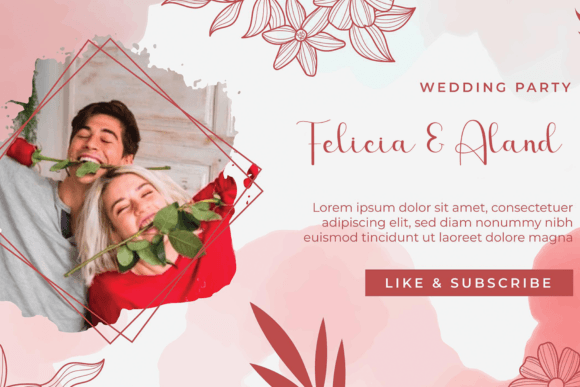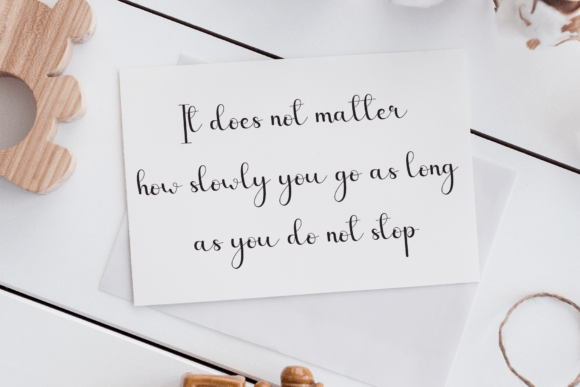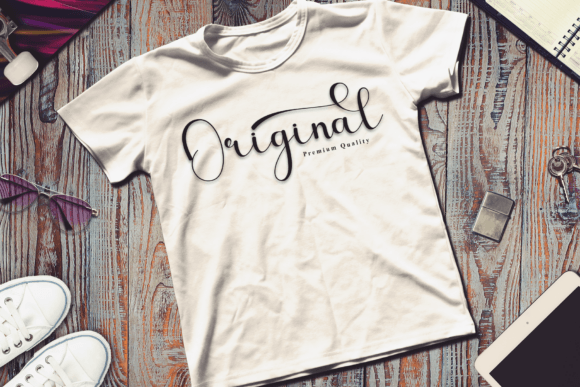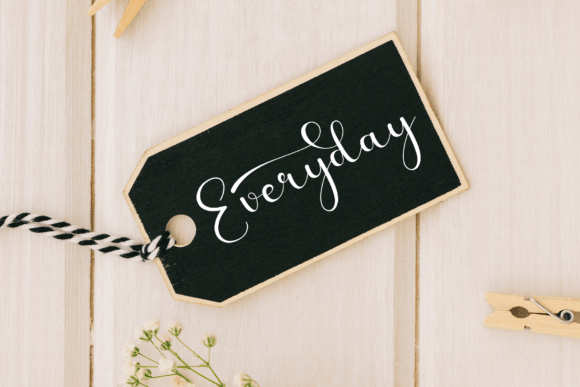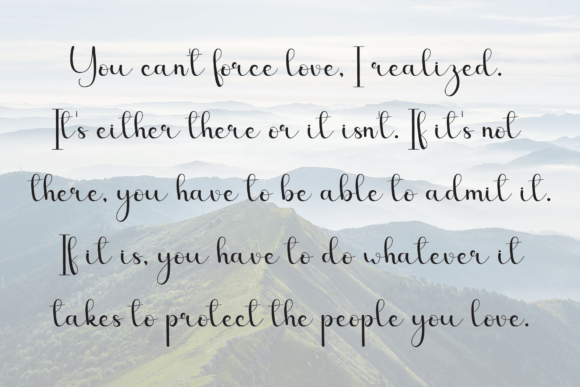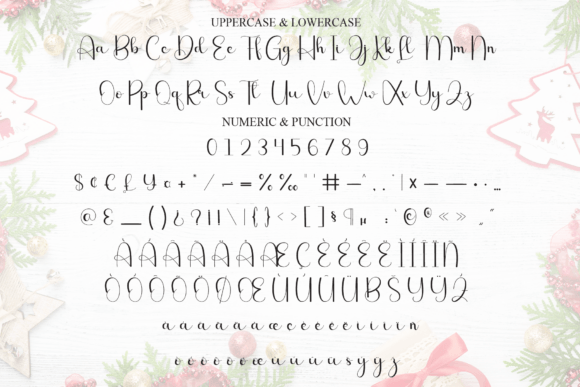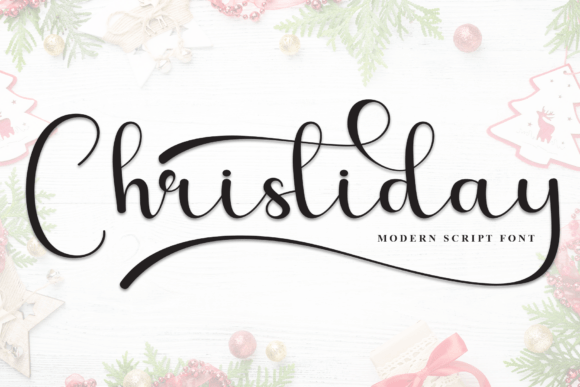
Introducing Christiday Font: The Ultimate Handwritten Display Font for Joyful Designs
Are you tired of using the same old fonts for your designs? Do you want to add a touch of warmth and personality to your wedding invitations, cards, and other creative projects? Look no further than Christiday Font, a charming and welcoming handwritten display font that’s sure to bring a smile to your face. In this article, we’ll dive into the world of Christiday Font and explore its features, benefits, and uses.
A Font that Exudes Charm and Happiness
Christiday Font is a beautifully crafted handwritten display font that’s designed to evoke feelings of joy and warmth. Its unique blend of sweetness and friendliness makes it perfect for creating designs that are not only visually appealing but also emotively engaging. Whether you’re a designer, crafter, or DIY enthusiast, Christiday Font is sure to become your go-to font for all your creative projects.
Wedding invitations and cards are special occasions that deserve a font that’s just as special. Christiday Font is the perfect choice for these types of designs, as it adds a touch of romance and whimsy to your creations. Imagine sending out wedding invitations that are not only informative but also beautiful and memorable. With Christiday Font, you can create stunning designs that will leave a lasting impression on your loved ones.
A Font that Blends Sweetness with Friendliness
What sets Christiday Font apart from other fonts is its unique blend of sweetness and friendliness. This font is not just a collection of letters and symbols; it’s a way to convey emotions and personality through your designs. Whether you’re creating a birthday card, a thank-you note, or a wedding invitation, Christiday Font is sure to bring a touch of warmth and personality to your creations.
Transforming Small Details into Memorable Aesthetics
One of the most significant benefits of Christiday Font is its ability to transform even the smallest details into memorable aesthetics. Whether you’re designing a logo, a brochure, or a social media post, this font is sure to make your creations stand out. With Christiday Font, you can add a touch of personality to your designs and make them more engaging and memorable.
Features and Benefits of Christiday Font
- Handwritten display font: Christiday Font is a beautifully crafted handwritten display font that’s perfect for creating joyful and engaging designs.
- Charming and welcoming: This font exudes charm and happiness, making it perfect for wedding invitations, cards, and other special occasions.
- Blends sweetness with friendliness: Christiday Font combines sweetness and friendliness, making your designs not only visually appealing but also emotively engaging.
- Perfect for designers and crafters: Whether you’re a designer, crafter, or DIY enthusiast, Christiday Font is the perfect choice for all your creative projects.
- Transforms small details into memorable aesthetics: This font has the power to transform even the smallest details into memorable aesthetics, making your designs stand out.
- Experiment with colors and textures: Christiday Font looks great in a variety of colors and textures, so don’t be afraid to experiment and find the perfect combination for your design.
| Font Name | Christiday Font |
In conclusion, Christiday Font is a charming and welcoming handwritten display font that’s perfect for creating joyful and engaging designs. Its unique blend of sweetness and friendliness makes it perfect for wedding invitations, cards, and other special occasions. Whether you’re a designer, crafter, or DIY enthusiast, Christiday Font is sure to become your go-to font for all your creative projects. So why wait? Download Christiday Font today and start transforming your designs into memorable aesthetics!